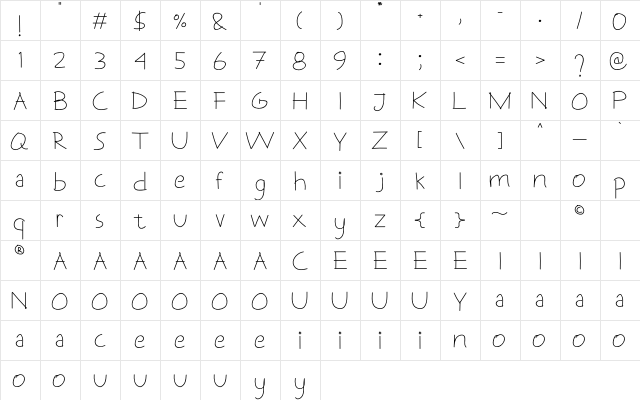
Tulehu Regular
| Foundry | LetterCraft Studio. |
| Designer | Bagus Aji W. |
Design Context for Tulehu Typeface
Tulehu takes a measured approach to typography — its balanced proportions and neutral character make it a reliable workhorse for both digital and print work.